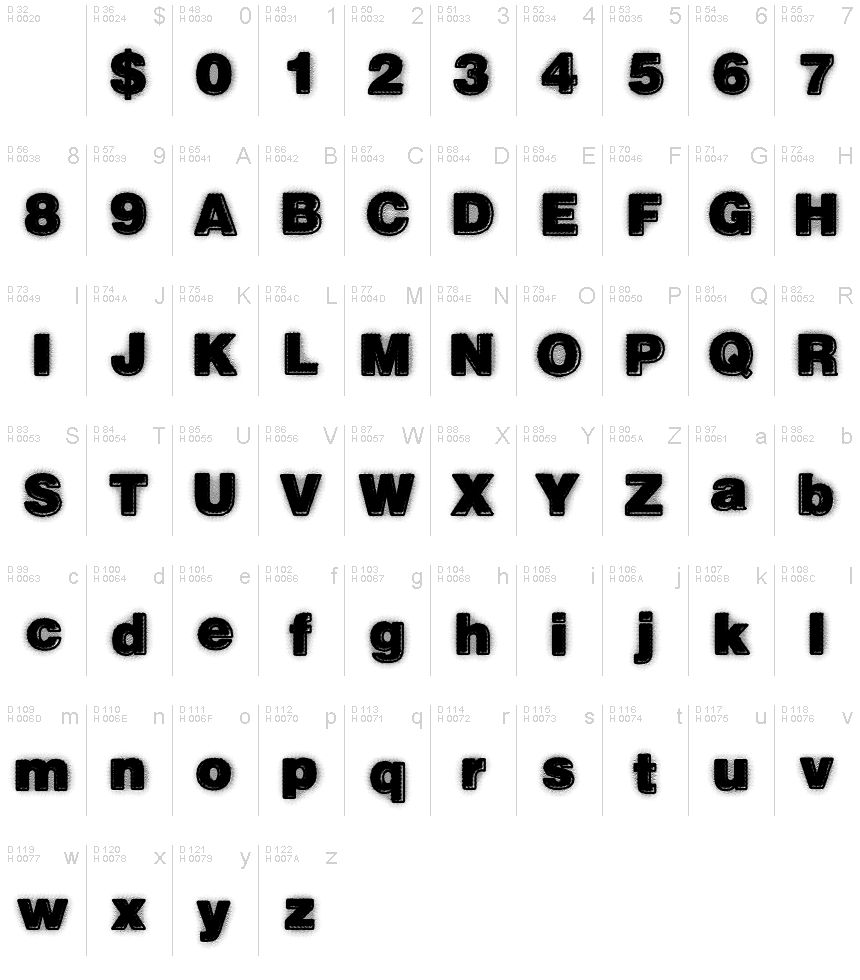
NextWave
Next Wave is a dynamic and captivating display font designed by Xerographer Fonts Max Infeld. Its bold, eroded aesthetic creates a powerful visual impact, evoking a sense of ruggedness and raw energy. The uneven, distressed edges of the letters lend a gritty, industrial charm to the typeface, making it an excellent choice for headings, logos, and other high-impact design elements.
Next Wave's versatility shines through its ability to seamlessly blend modern and vintage sensibilities. Its bold, striking presence makes it well-suited for a wide range of applications, from editorial design and branding to packaging and event posters. The font's unique character and strong visual personality can elevate any design project, lending an edgy, urban flair to the overall aesthetic.